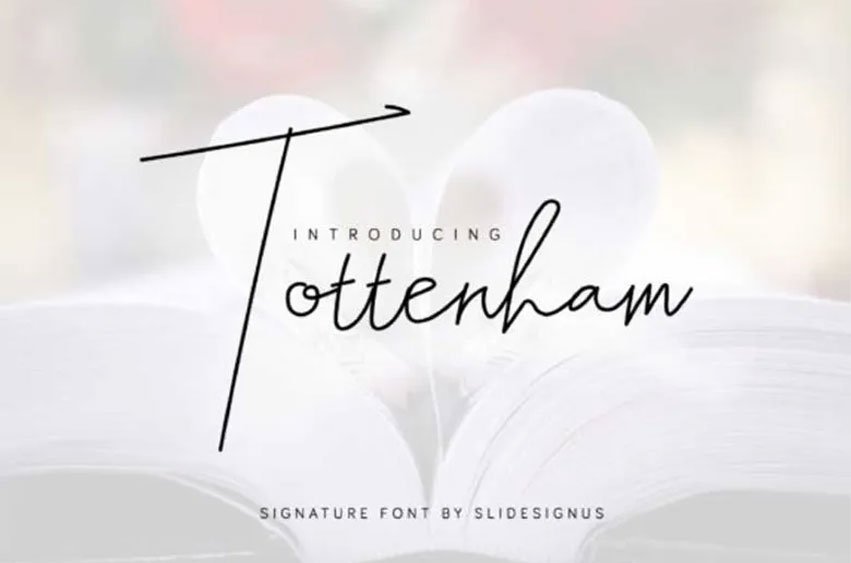
Tottenham Font
Tottenham Font exudes charm with its style that adds a light and airy vibe to any design project.
It will certainly amaze your readers.